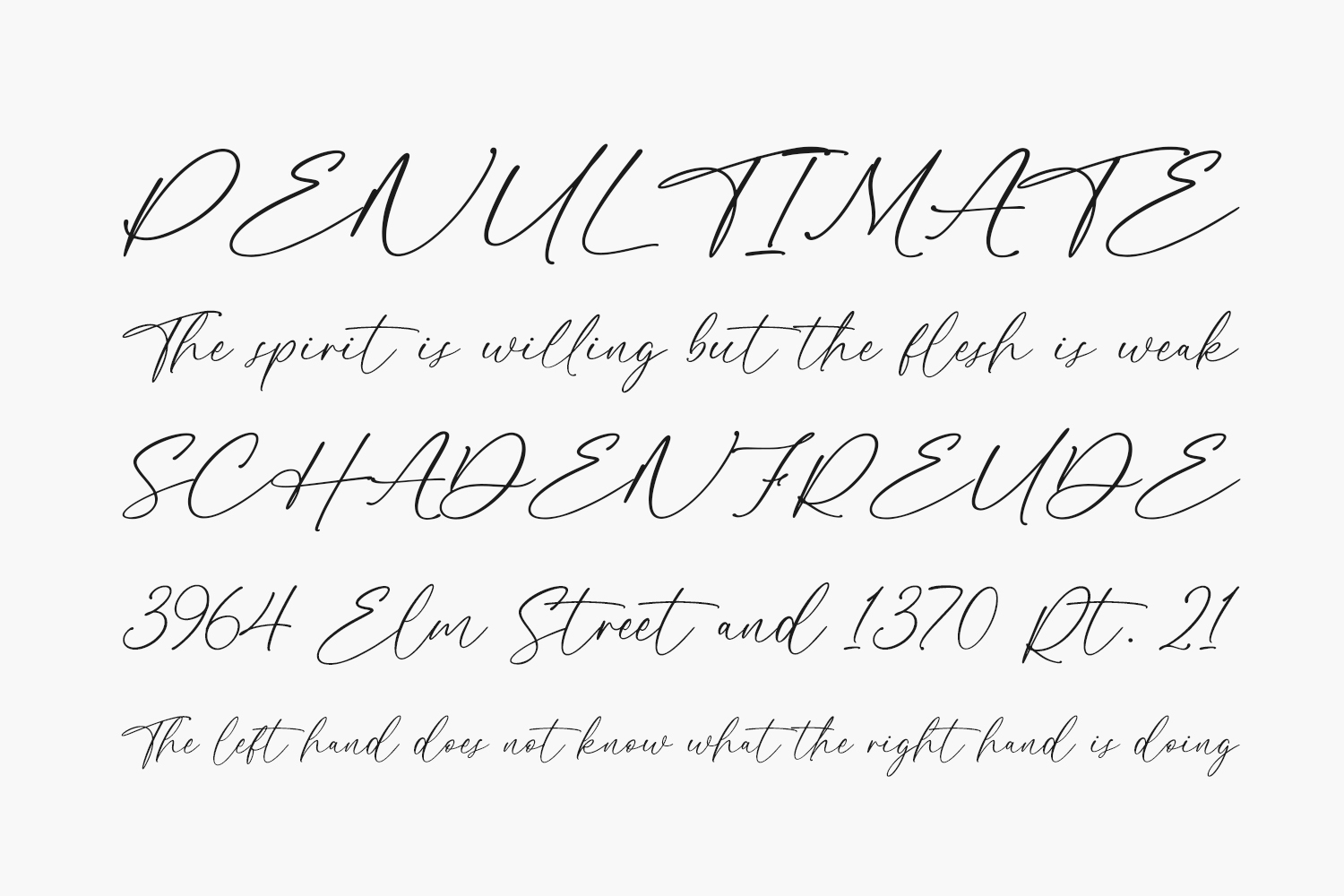
Hamilton Free Font is modern and classy calligraphy font, that comes with beautiful ligatures and lovely alternates. Hamilton has a very beautiful stroke and it will suit various wedding invitations, fashion cards, and more.
Designed by Pen Culture